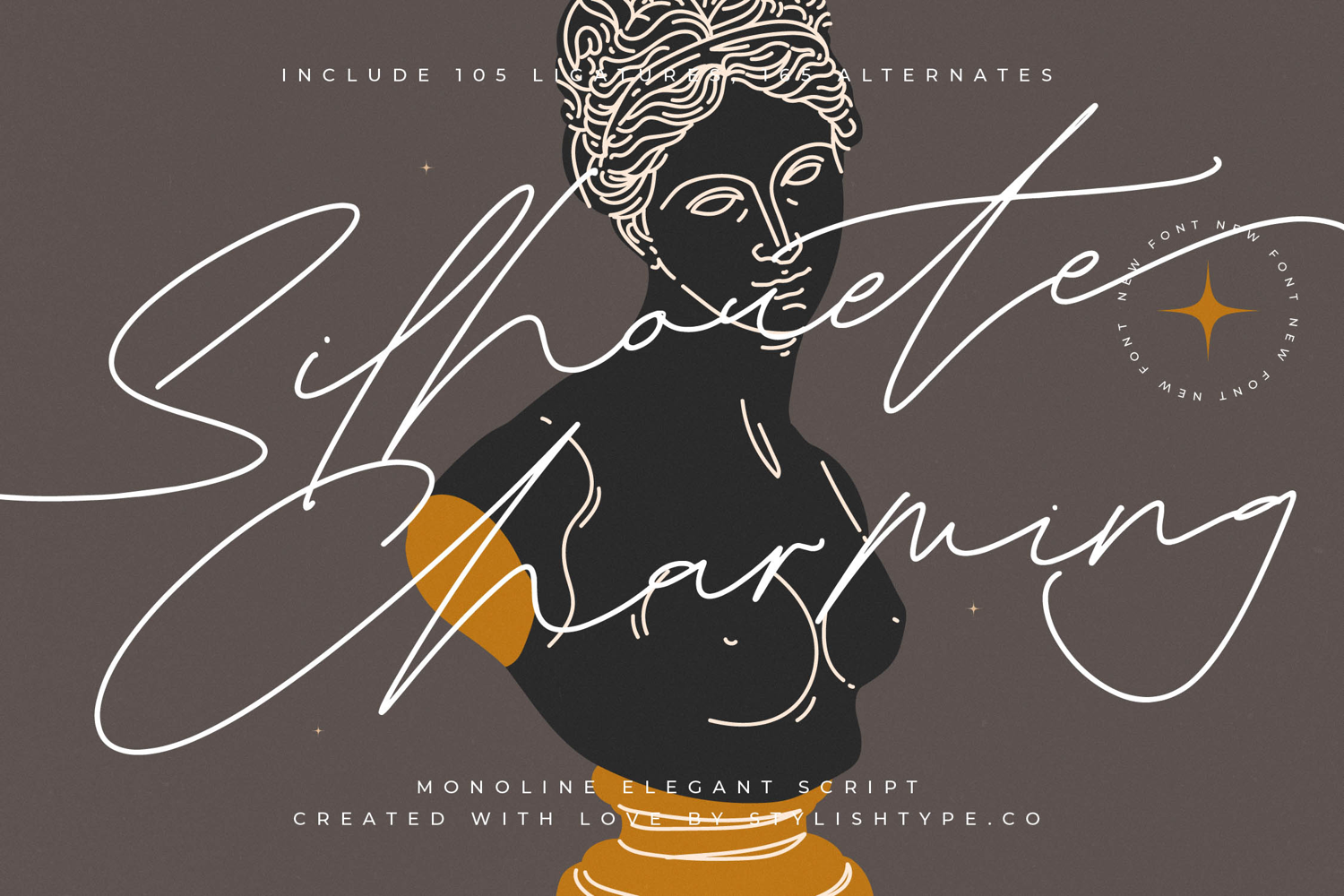
Silhouete Charming - Monoline Elegant Script
Elevate your creative vision with the timeless allure of Silhouete Charming - Monoline Elegant Script. This typeface embodies a sophisticated monoline aesthetic that perfectly blends classical elegance with a contemporary minimalist flair. Its fluid handwriting style offers a natural rhythm and seamless flow, making it an essential tool for designers seeking to infuse their compositions with a touch of refined artistry and high-end appeal.
Unlocking unparalleled creative freedom, Silhouete Charming - Monoline Elegant Script boasts an impressive library of over 105 ligatures and 161 alternates. These OpenType features allow for bespoke typography that feels truly handcrafted and organic. With its extensive multilingual support, Silhouete Charming - Monoline Elegant Script adapts seamlessly across global markets, making it incredibly versatile for international projects and multicultural editorial layouts.
Position your brand at the pinnacle of prestige with a typeface meticulously crafted for high-impact visual identities. Silhouete Charming - Monoline Elegant Script is the perfect choice for luxury branding, wedding invitations, and premium product packaging. It is ideal for cosmetic labels, fashion logos, and boutique stationery, where a commanding presence and an exclusive atmosphere are paramount to success.
Experience the perfect harmony of legibility and grace in every stroke of Silhouete Charming - Monoline Elegant Script. This versatile script is engineered for high performance in both digital and print media, maintaining its delicate silhouette and crisp definition across all platforms. By choosing Silhouete Charming - Monoline Elegant Script, you are investing in a distinguished design asset that transforms standard messaging into a compelling visual masterpiece.